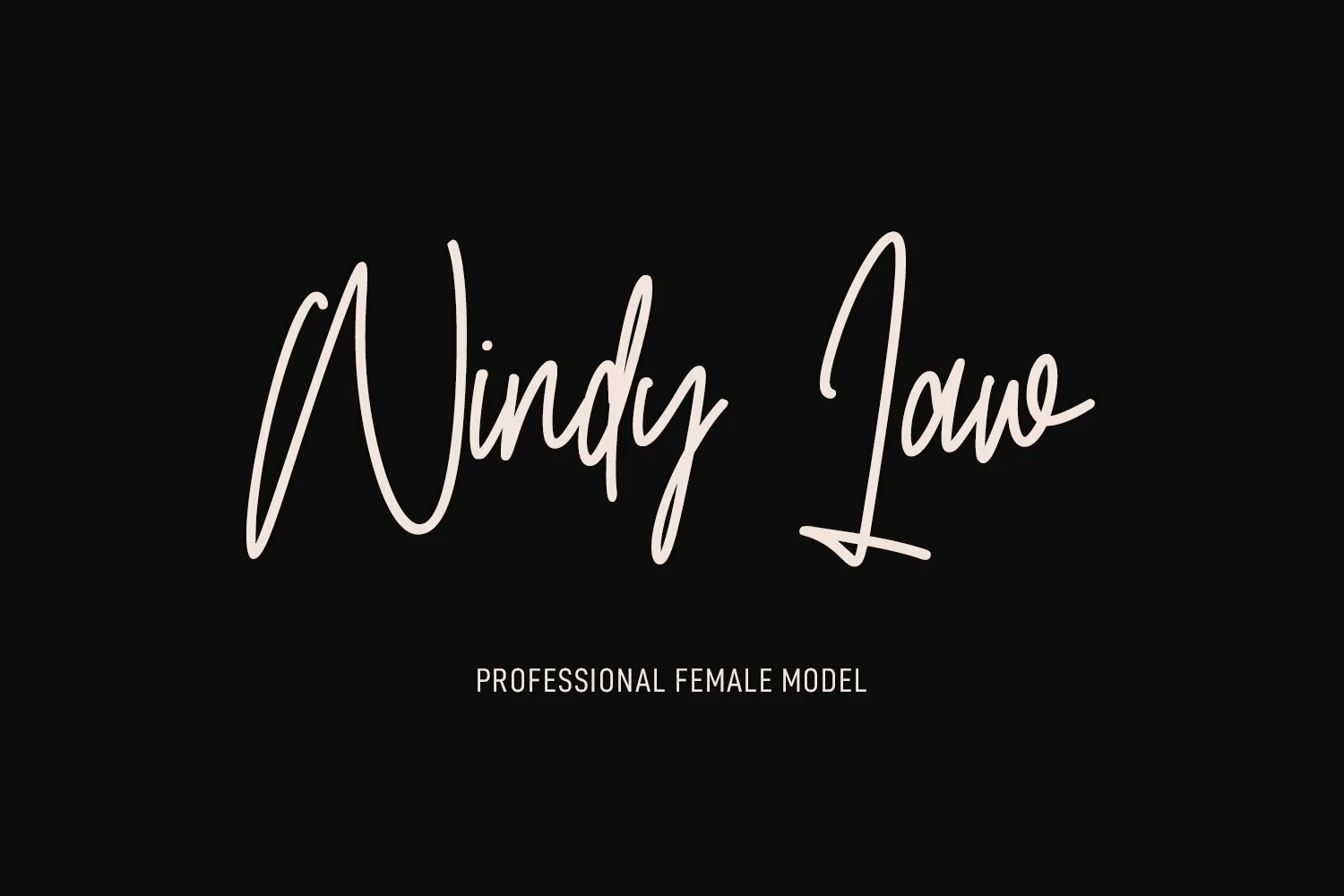
Olgoods is a Simply casual script font. With regular stroke, italic and Unique Upper and lower characters with bit of ligatures. To give you an extra creative work. Olgoods font support multilingual more than 100+ language. This font is good for logo design, Social media, Movie Titles, Books Titles, a short text even a long text letter and good for your secondary text font with sans or serif. Make a stunning work with Olgoods font.